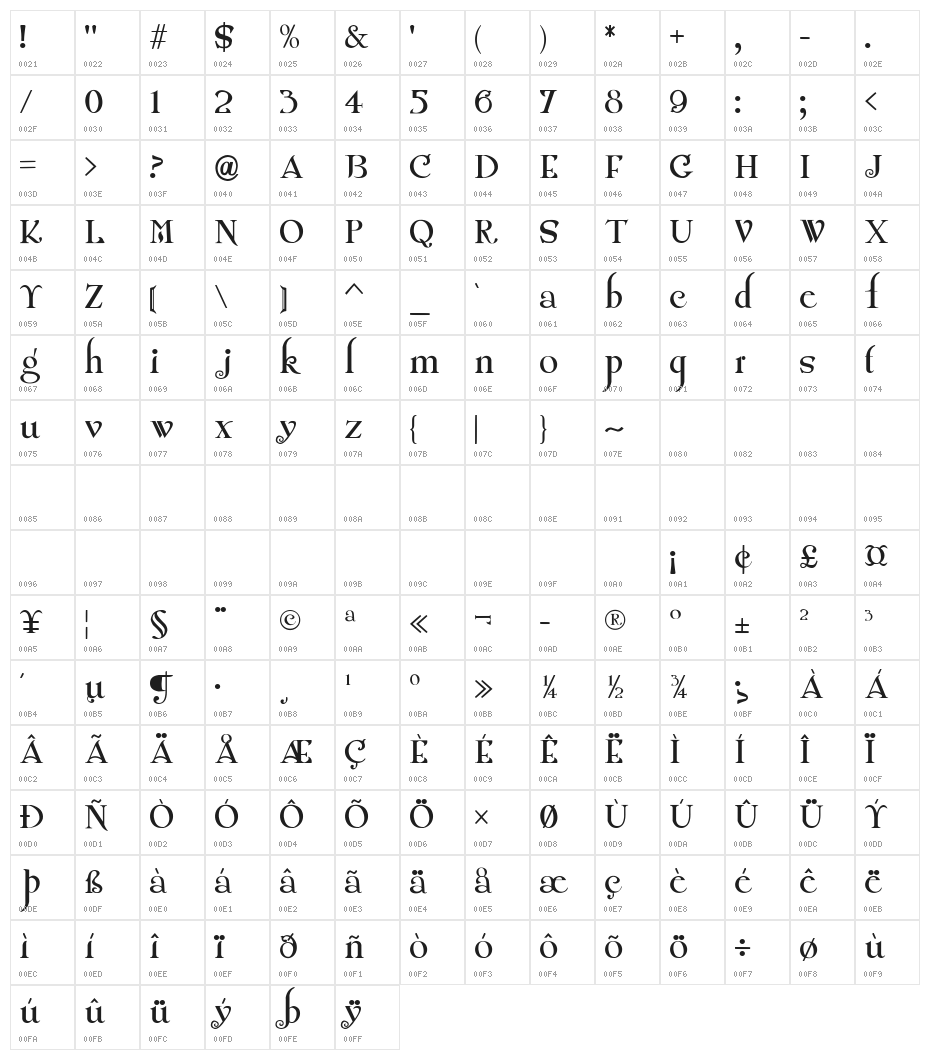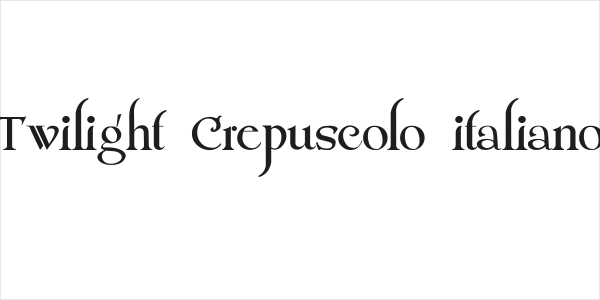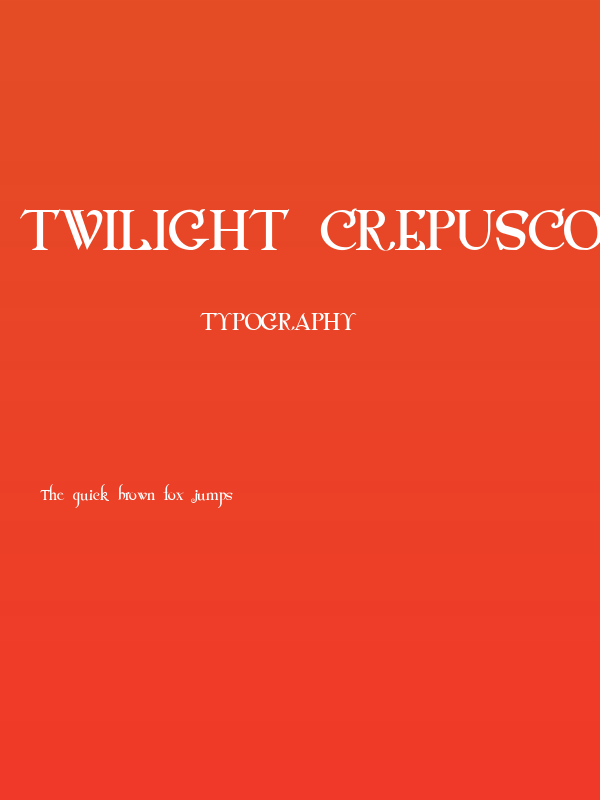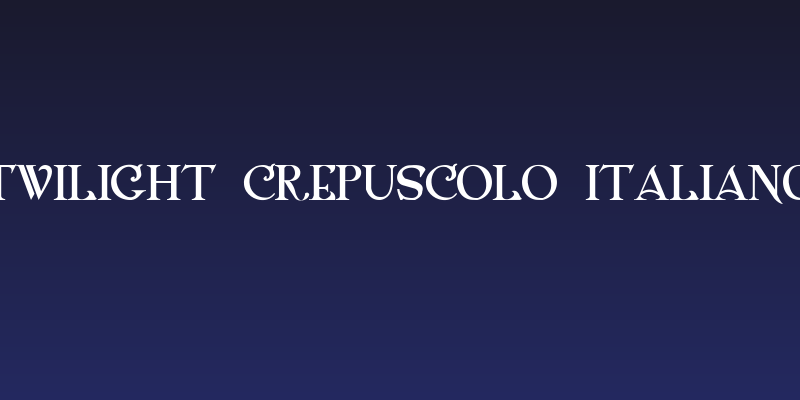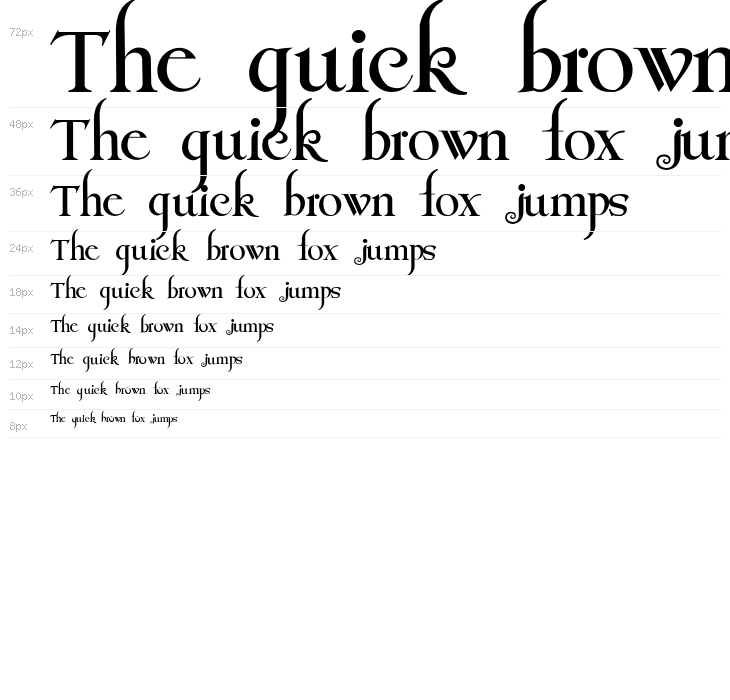
Twilight Crepuscolo italiano Font
Twilight Crepuscolo italiano Description
This font features a decorative and elegant style with a classic touch. The uppercase letters are bold and prominent, with unique flourishes and curves that add a sense of sophistication. The lowercase letters maintain a consistent style, with some characters featuring distinctive swirls and loops. The numerals are clear and easy to read, while the special characters complement the overall aesthetic. The font's design is well-suited for projects that require a touch of elegance and creativity, making it ideal for invitations, branding, and artistic designs.
| Overall Style | Classic, Decorative |
| Proposed Projects | Ideal for wedding invitations, luxury branding, artistic posters, and creative designs. |